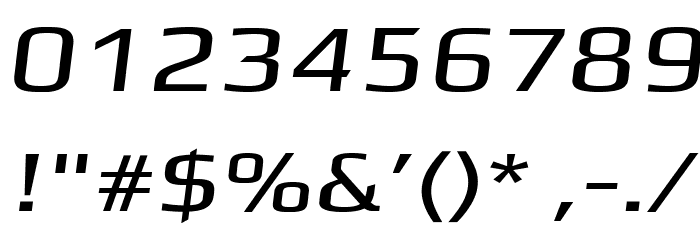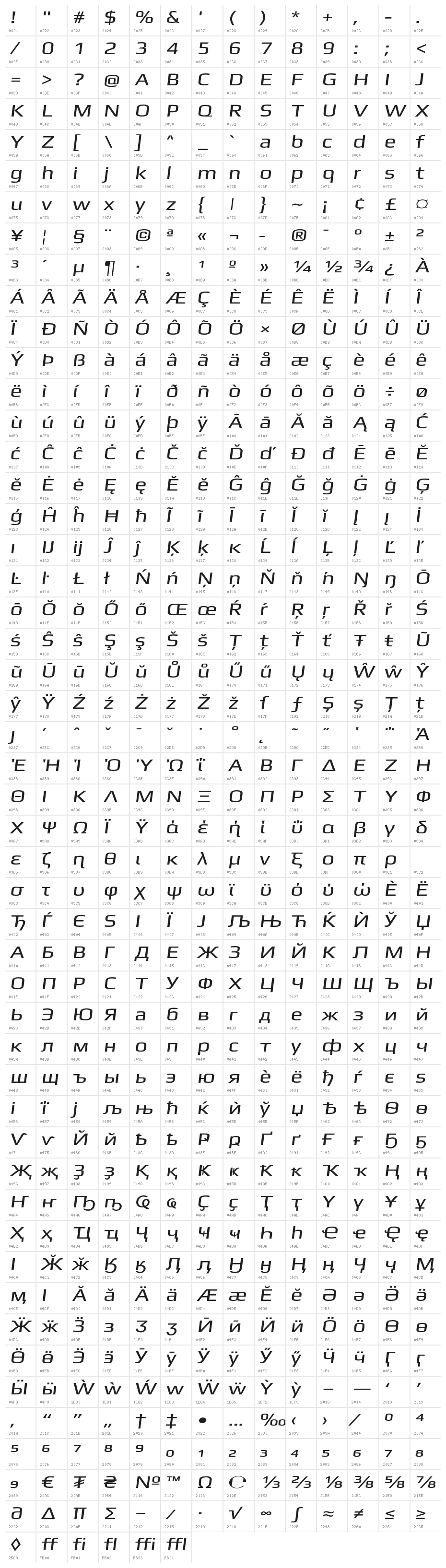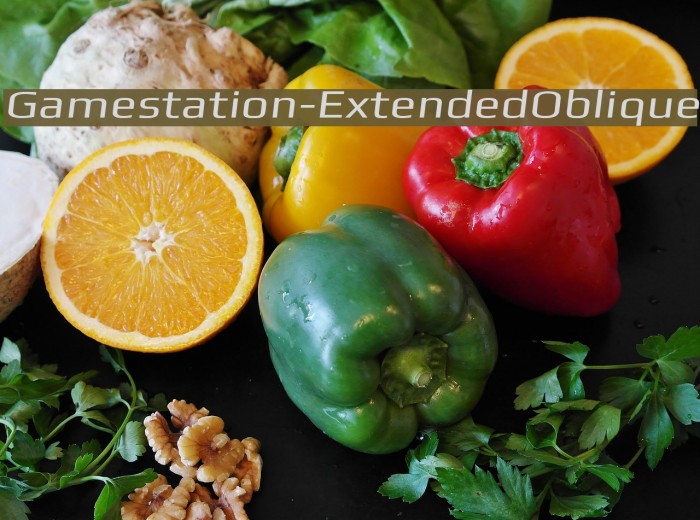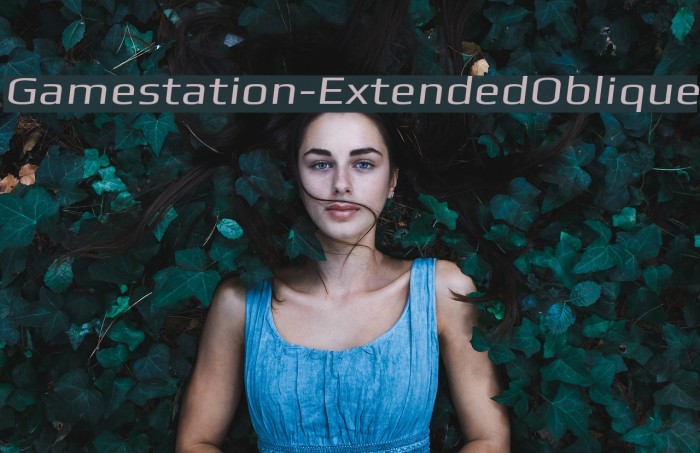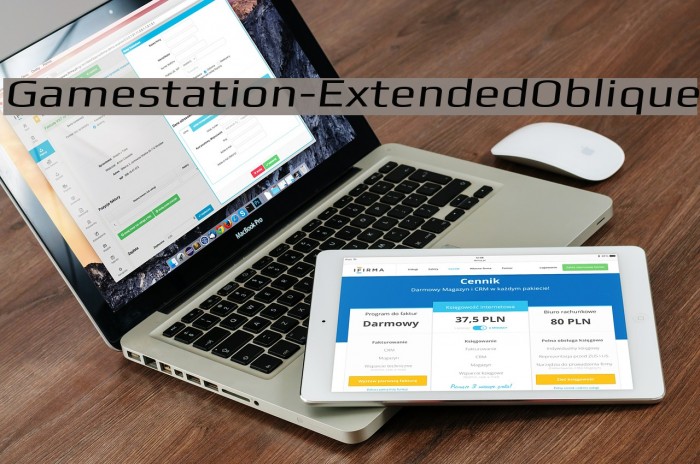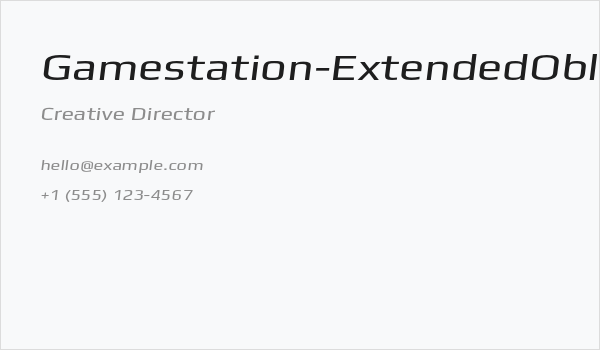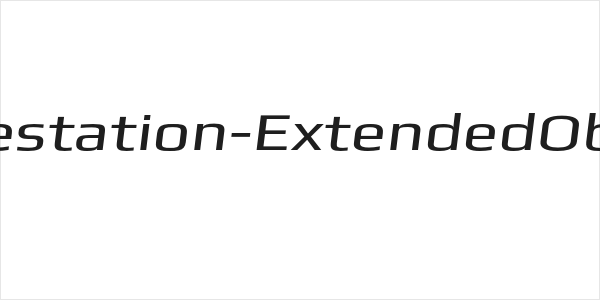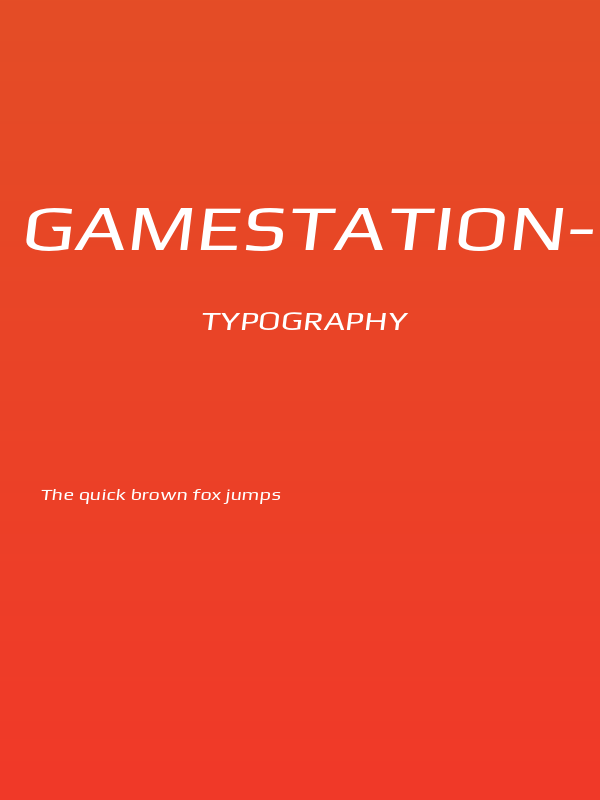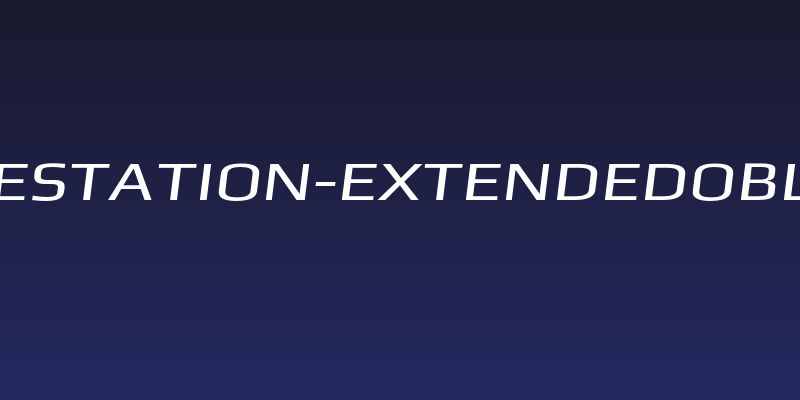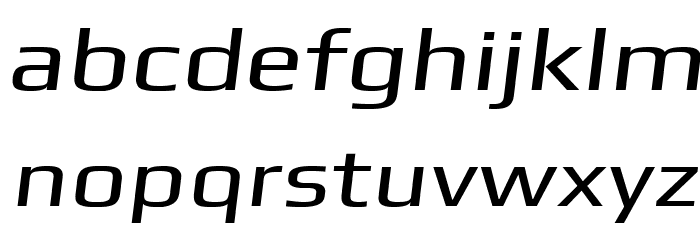
Gamestation-ExtendedOblique Font
Gamestation-ExtendedOblique Description
This font features a sleek, modern design with an oblique slant, giving it a dynamic and forward-moving appearance. The characters are clean and streamlined, with a consistent stroke width that conveys a sense of precision and efficiency. The uppercase and lowercase letters maintain a uniform style, while the numerals and special characters integrate seamlessly, enhancing the font's versatility. Its extended width provides a spacious feel, making it suitable for a variety of applications where readability and style are paramount.
| Use Case | Headlines, Logos, Advertising |
| Proposed Projects | Ideal for technology branding, sports team logos, futuristic designs, and dynamic advertising materials. |